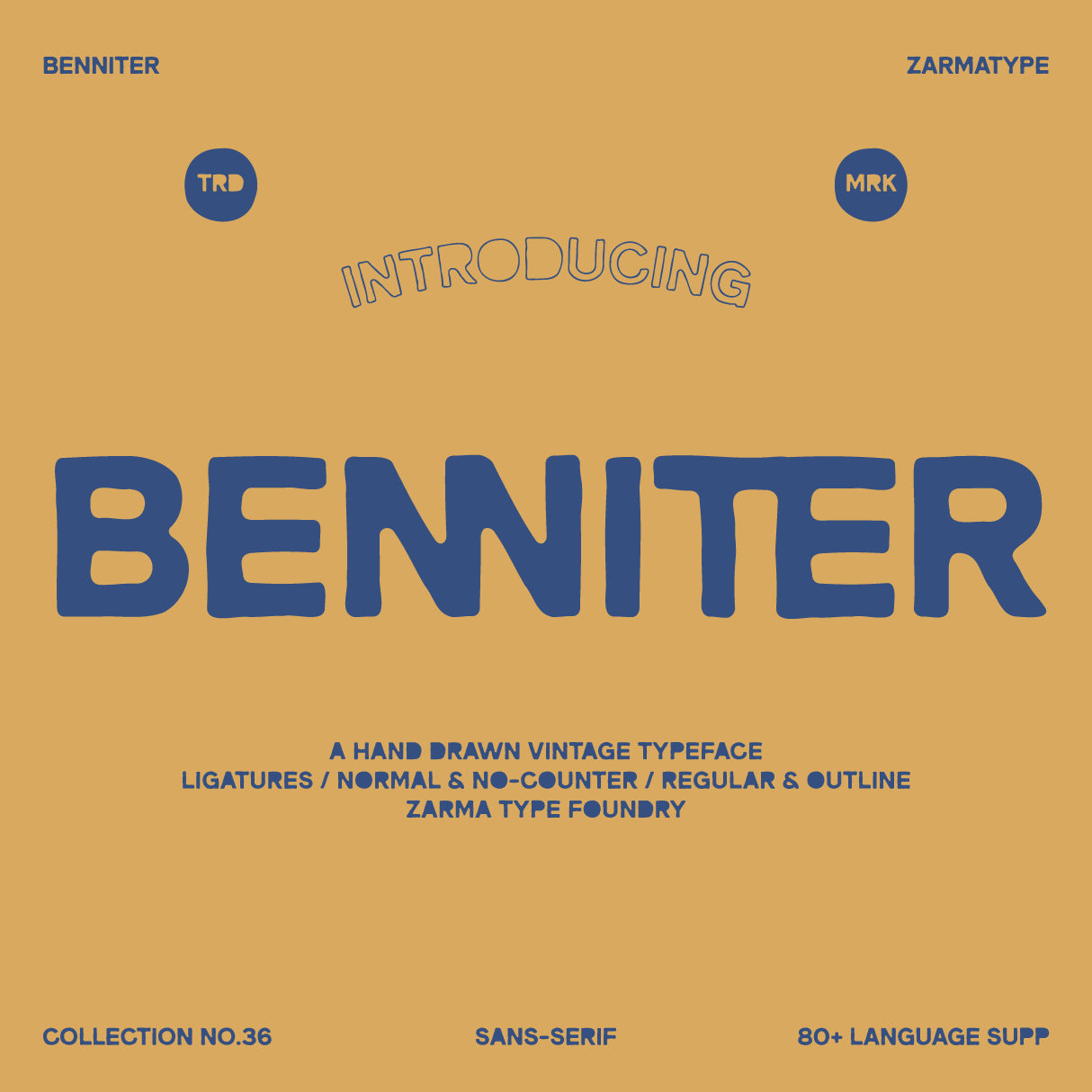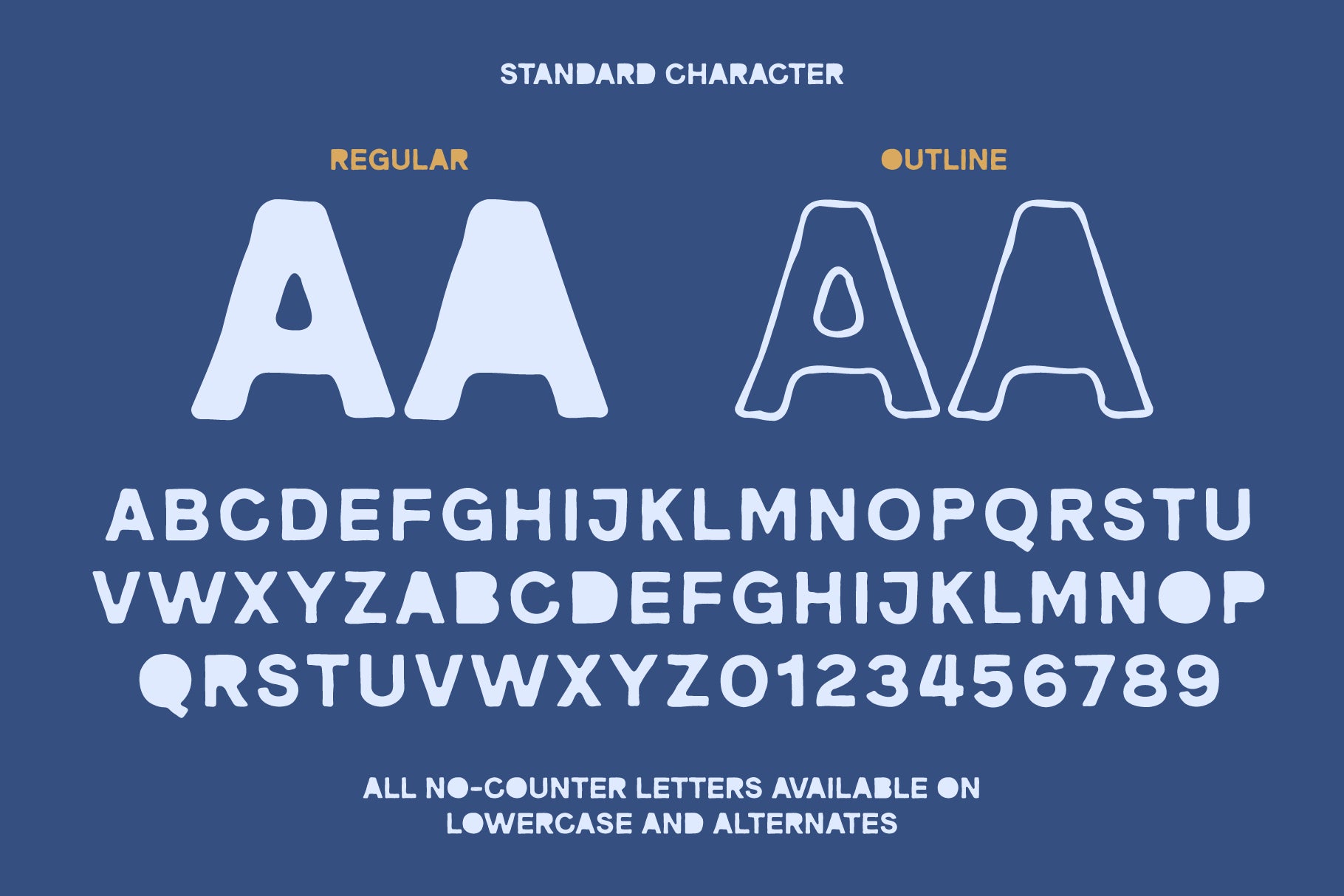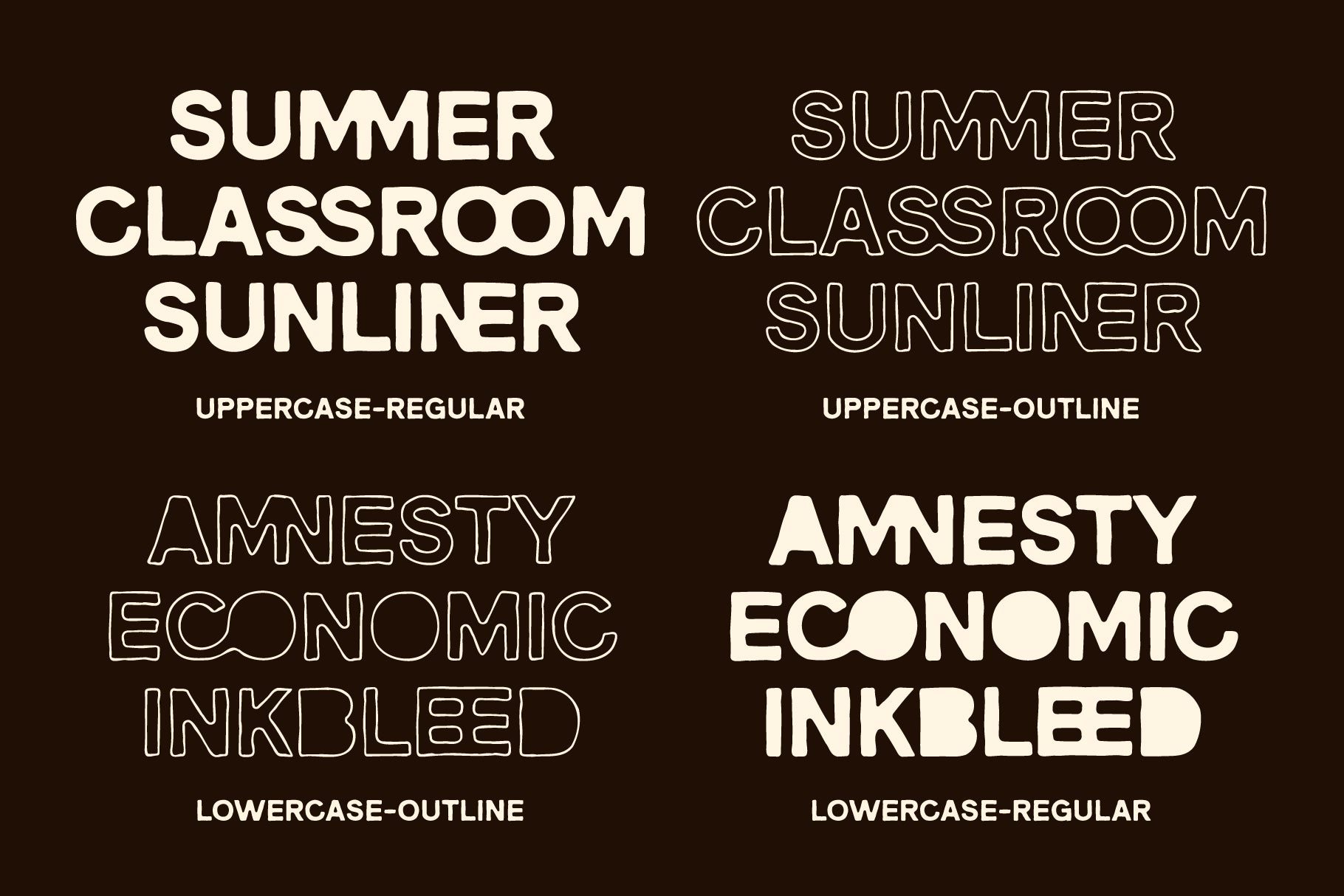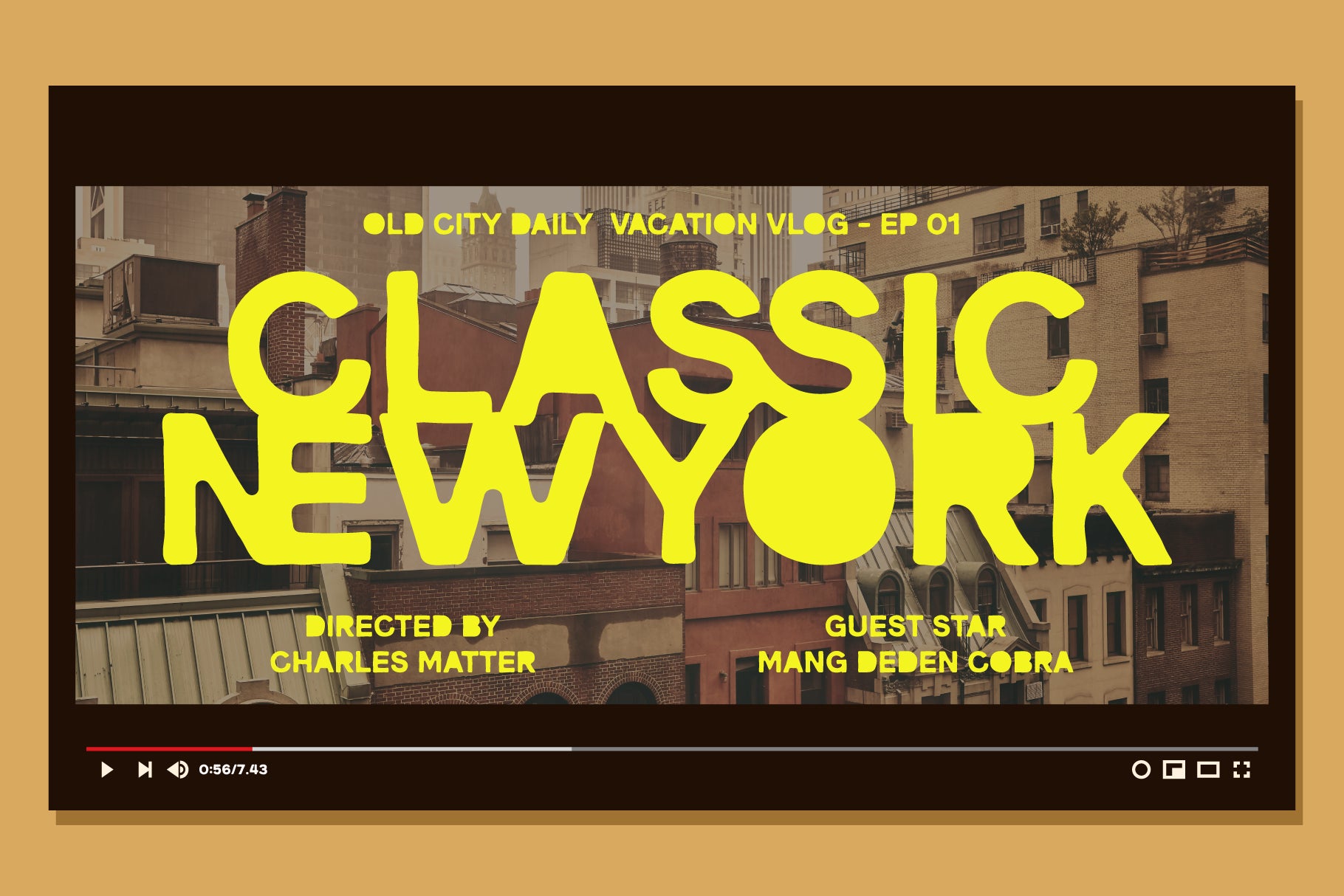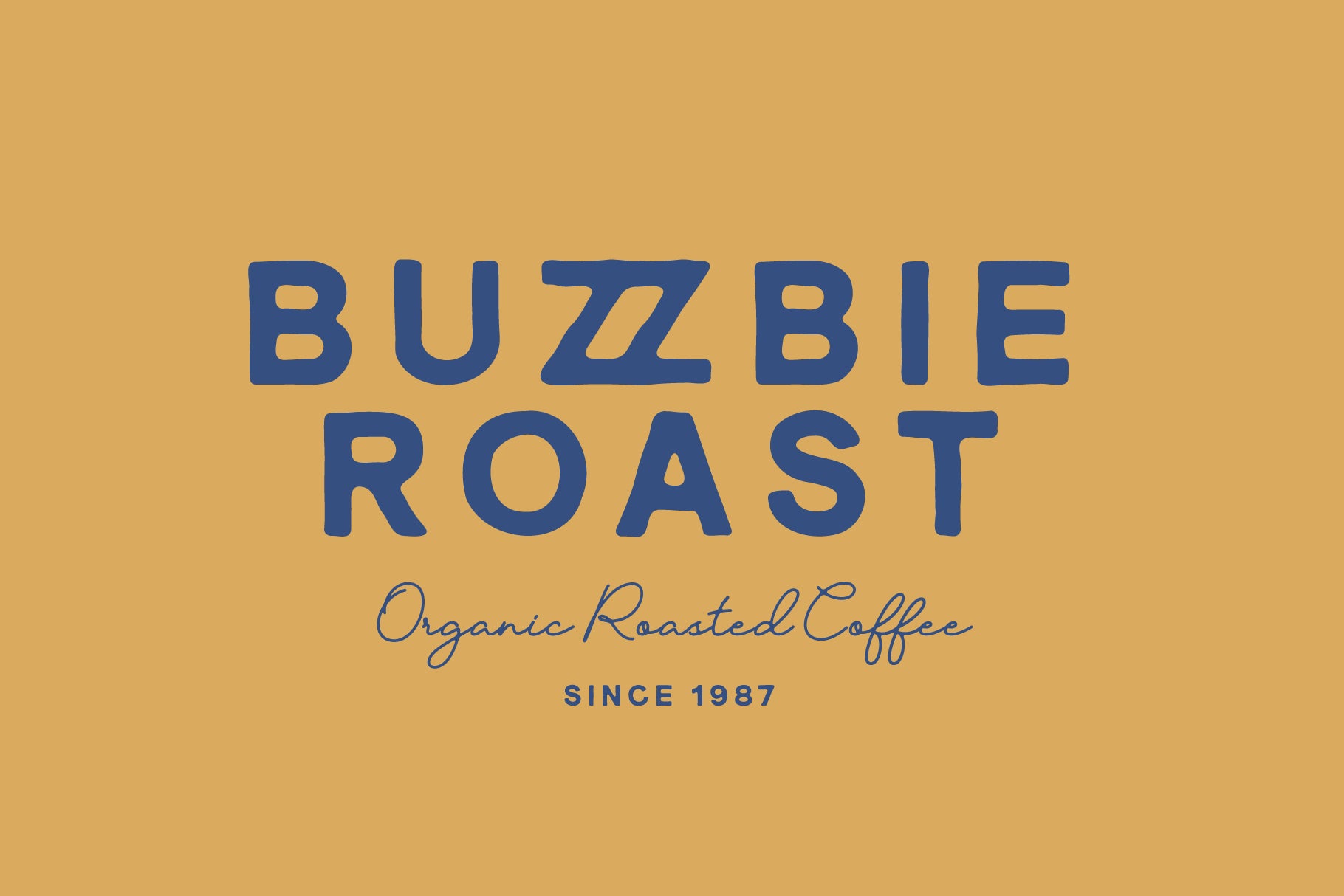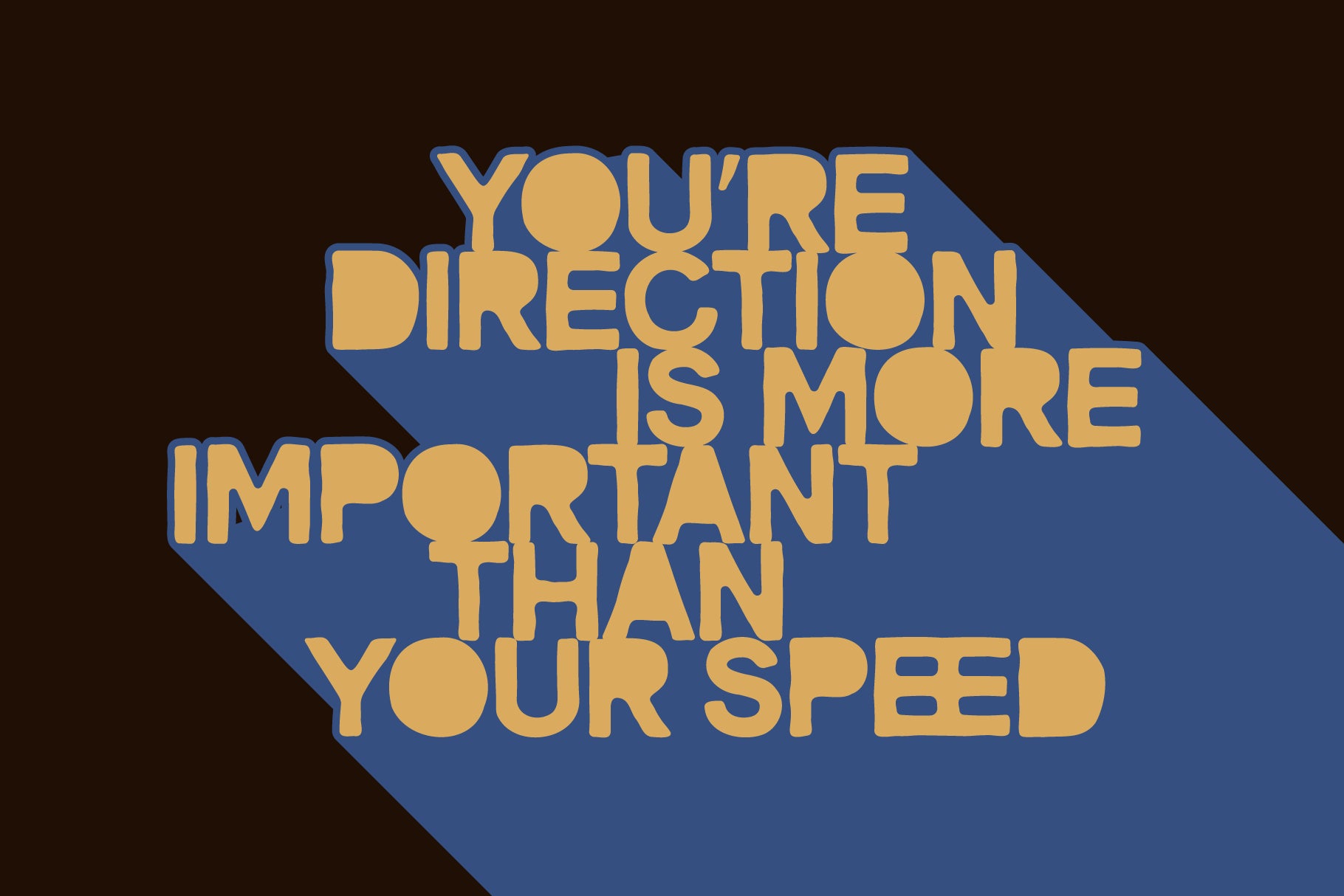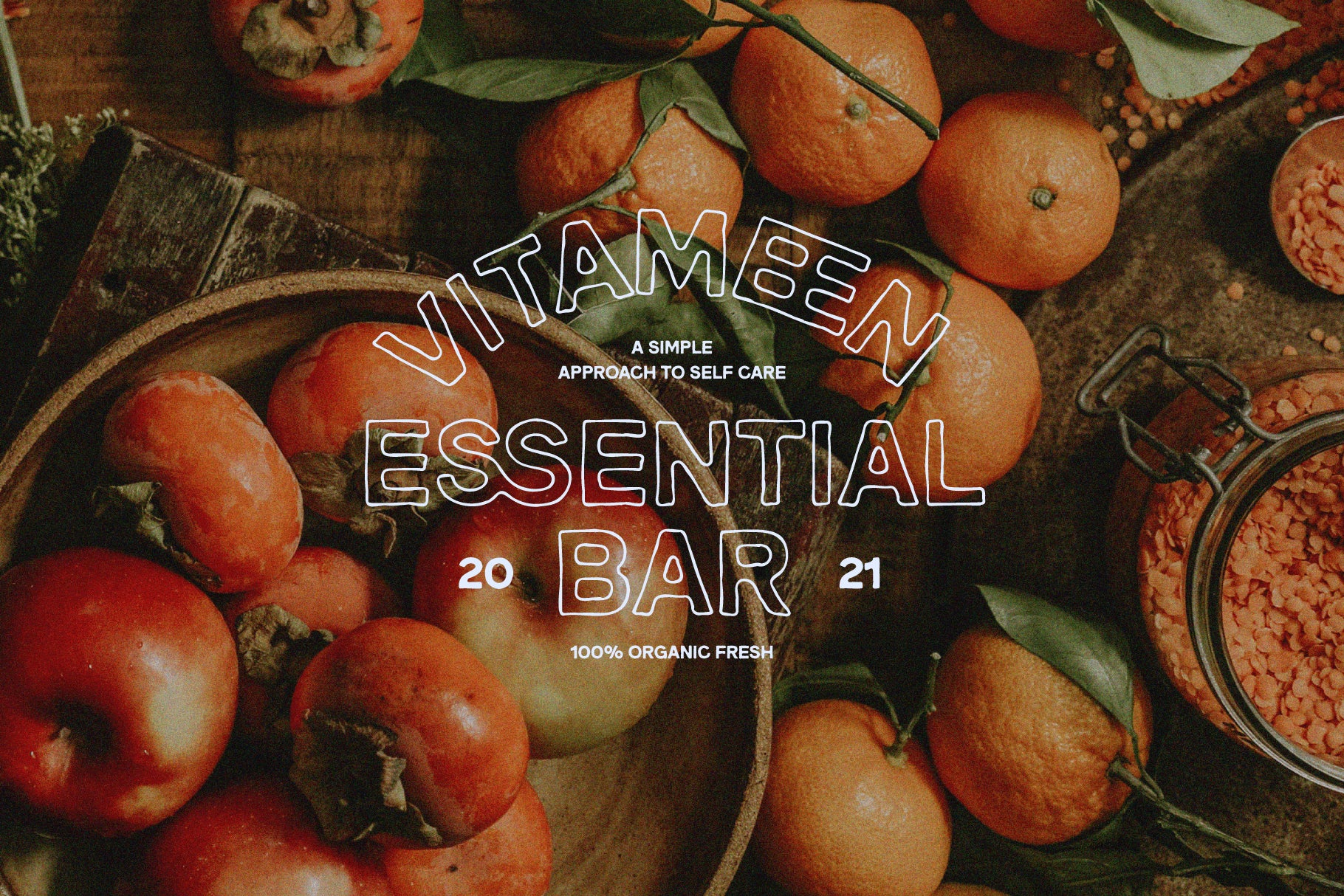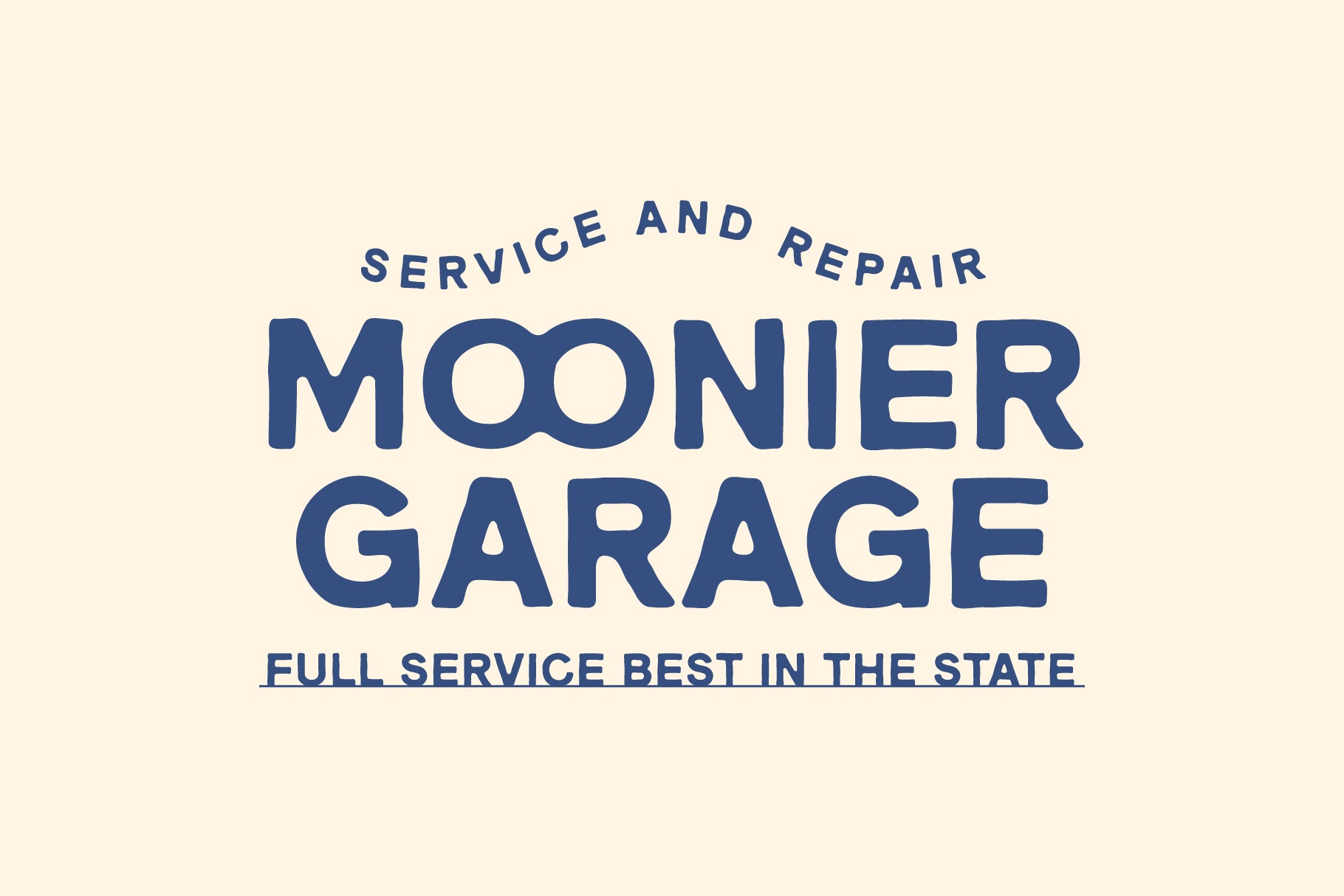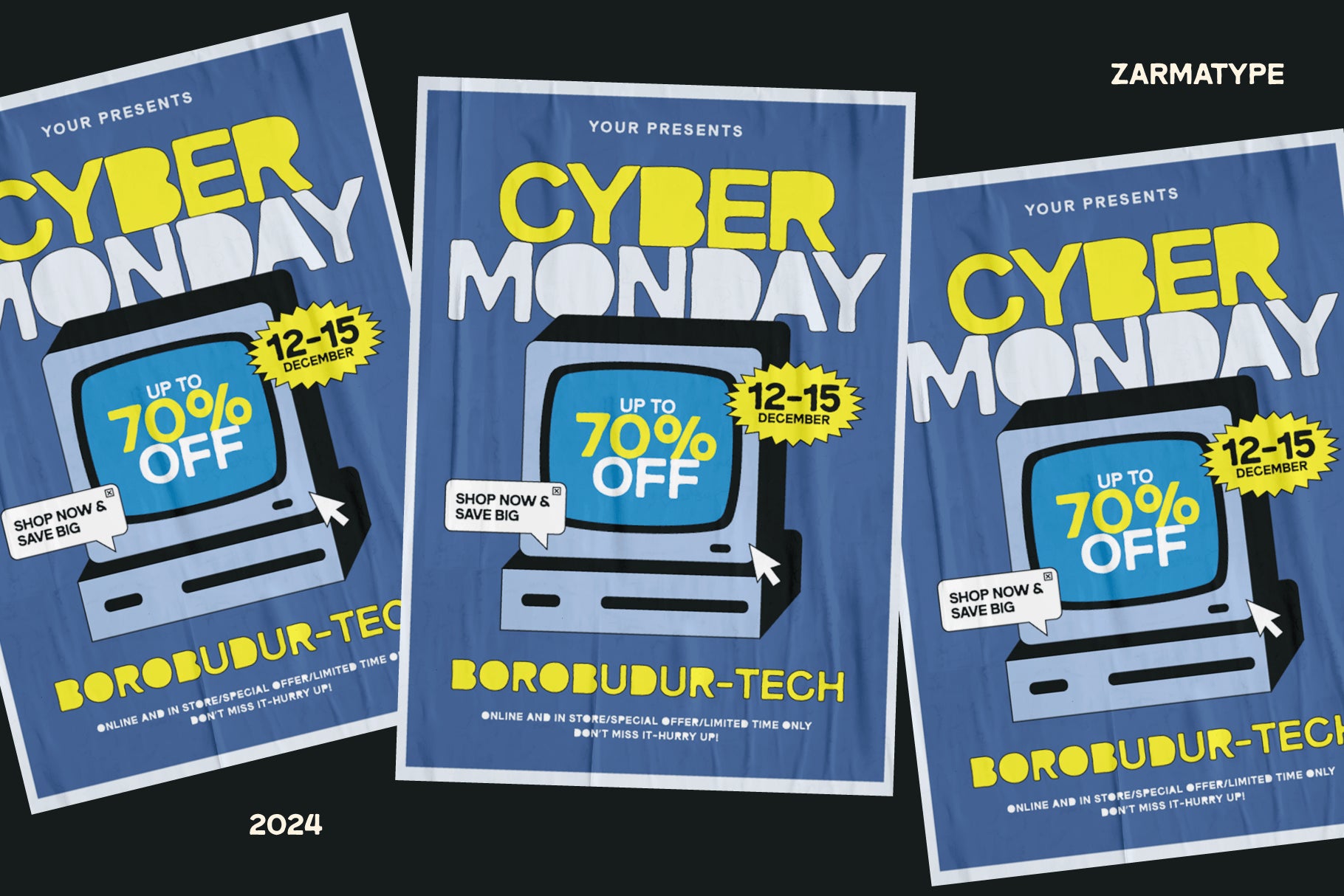
Benniter Font
Zarma Type
Benniter is a unique Hand Drawn Font that blends the character of a hand-drawn sans serif with rough textures and nostalgic retro charm. Its authentic handcrafted appearance brings warmth and personality to every design, making it an excellent choice for branding, vintage posters, packaging, editorial layouts, and other creative projects. Available in both Regular and Outline styles, Benniter offers the flexibility to create eye-catching typography with a timeless vintage appeal.
Designed for expressive lettering, Benniter features All Capital, Normal & No Counter letterforms, numbers, punctuation, a collection of unique ligatures, OpenType features, and PUA encoded characters for easy access to stylistic glyphs. With an Extended Latin character set containing 400+ glyphs and support for 85+ languages, Benniter delivers the versatility and global compatibility needed for designers looking to create bold, nostalgic, and memorable typography.
Benniter Font is a hand-drawn sans serif typeface featuring a unique blend of rough textures and retro charm, available in Regular and Outline styles. It includes all capital letters, normal and no counter letterforms, numbers, punctuation, ligatures, OpenType features, and an extended Latin character set with over 400 glyphs, supporting 85+ languages.